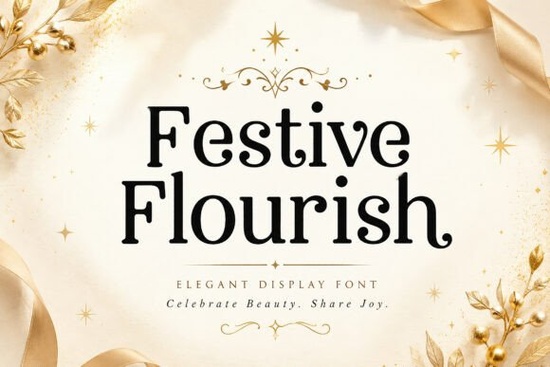
When creating holiday greeting cards or luxury wedding invitations, finding the right typography sets the tone for your entire project. The Festive Flourish Font offers an elegant serif display style that balances graceful curves with a classic festive charm. It provides excellent readability while adding a refined touch to boutique brand identities, premium event materials, and seasonal marketing campaigns. Whether you are a print-on-demand seller making seasonal apparel or a small business owner designing packaging, downloading Festive Flourish delivers a luxurious look with minimal effort. If you want to view similar elegant typography, you can browse more refined serif display options in this collection.
What types of projects work best with this serif typeface?
This typeface shines in situations where you need a formal yet approachable aesthetic. Print-on-demand creators often use it for holiday-themed tote bags, ceramic mugs, and vintage-style wall art. Small businesses can apply it to luxury product labels, especially for cosmetics, candles, or artisanal foods. The refined letterforms draw attention without overwhelming the viewer, making it highly versatile for commercial use.
For wedding stationers, the balanced structure makes it an excellent choice for invitation suites, seating charts, and menu cards. It holds up beautifully when printed on textured cotton paper or applied with gold foil stamping. The decorative personality bridges the gap between modern minimalism and vintage-inspired design, giving your stationery a timeless appeal.
Here are a few specific use cases where it performs exceptionally well:
- Holiday Branding: Seasonal logos, winter sale graphics, and December newsletter headers that need a touch of class.
- Editorial Design: Magazine mastheads, article drop caps, and sophisticated book cover titles.
- Greeting Cards: Festive messages that require an air of sophistication rather than a cartoonish feel.
- Event Signage: Boutique storefront windows, acrylic welcome boards, and elegant directional signs.
How do you pair this typeface with other design elements?
Typography pairing requires balancing the visual weight of your text. Because this typeface has decorative details and distinct curves, it works best as a primary heading or logo mark. When you need a secondary font for body text or longer paragraphs, stick to a clean, simple sans-serif or a highly legible monoline script to maintain readability.
When working with luxury packaging, allow plenty of negative space around the letters. Crowding the text diminishes the elegant feel. Using a minimalist color palette, such as deep forest green and gold or classic black and cream, highlights the graceful curves of the characters. For those wanting to experiment with a slightly different formal lettering style, checking out a stylistic alternative might provide the exact accent needed for subheadings. Conversely, if your project requires a bit more ornamental flair, a highly ornamented typeface can add that extra layer of traditional detail to your borders and frames.
- Check your contrast: Make sure the elegant letterforms stand out clearly against your background color or pattern. Thin serifs can disappear on busy backgrounds, so keep the backdrop simple.
- Mind the spacing: Adjust the kerning manually for short words in logos. Display typefaces often require slight spacing tweaks to maintain visual balance across different letter combinations.